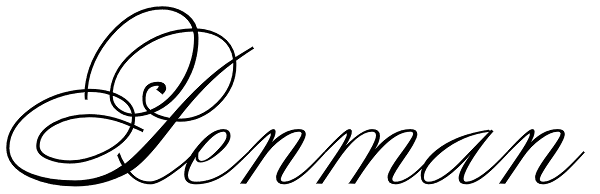
Penman
The Penman fonts are partially based on the 19th century penmanship of one of the designer’s ancestors, and originally created for a personal mailing with an “old-times tradition” flavor. The fonts are lightly pair-kerned, in order to control...